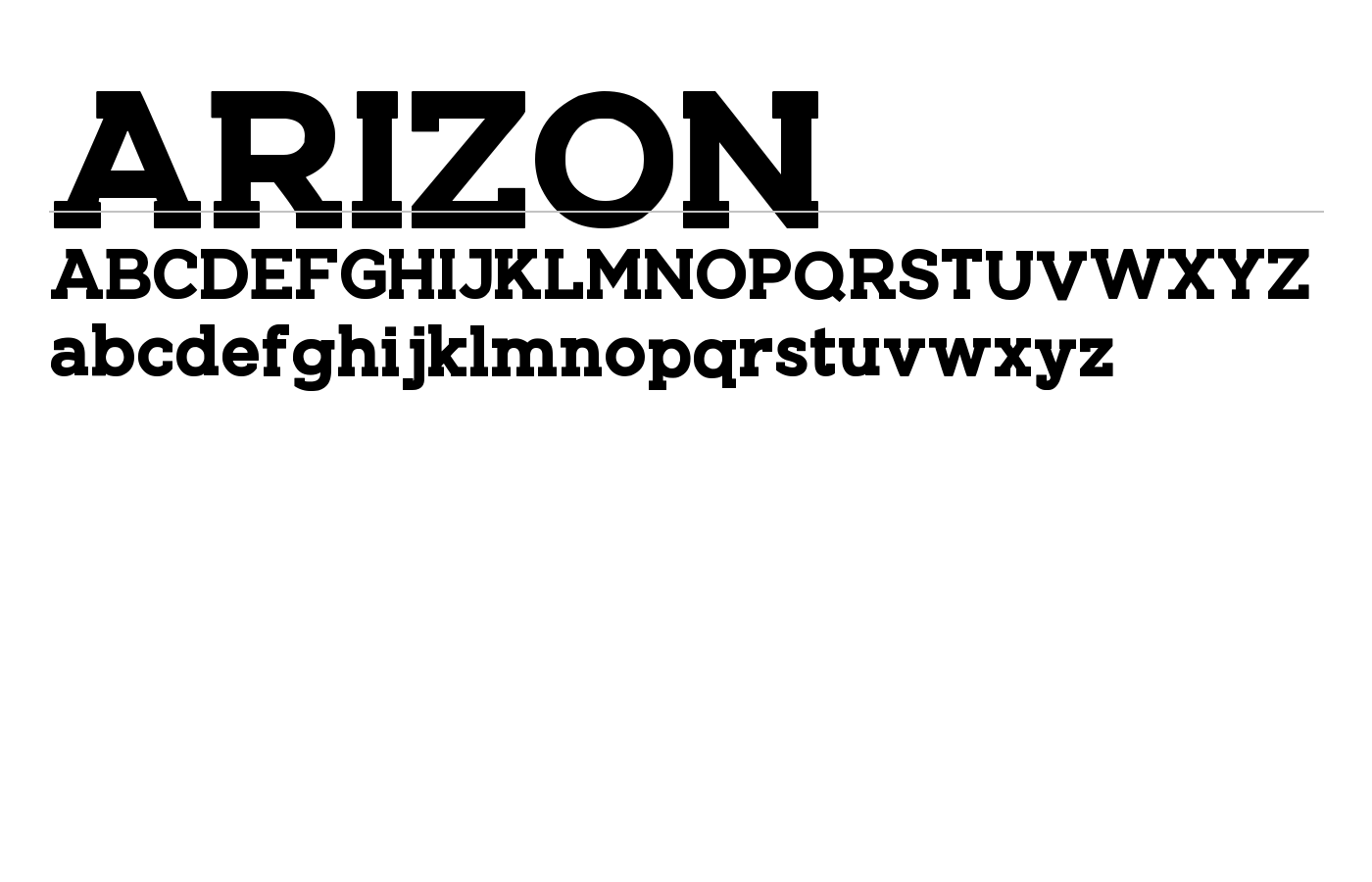
Arizon is a bold slab serif font characterized by its strong, blocky serifs and sturdy structure, giving it a confident and impactful presence. With its balanced x-height and uniform stroke weight, it combines classic serif features with a modern, industrial feel, making it ideal for headlines, logos, and branding that require a robust and authoritative look. This font works well in editorial design and packaging where a sense of strength and reliability is desired.
ARIZON Font